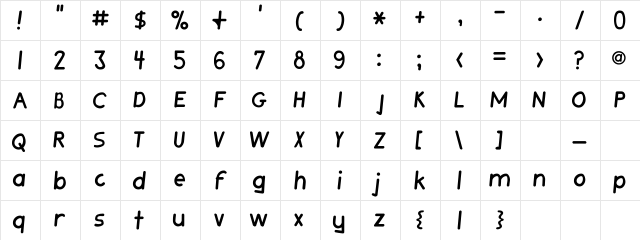
AquilliaComicHa has an approachable, lighthearted character - its loose, expressive forms are well-suited to children's content, casual branding, and fun-first design.
Font Pairing: Pairs well with a rounded or humanist sans for body copy, maintaining the friendly tone without relying on AquilliaComicHa to carry extended reading.
Pro Tip: Use AquilliaComicHa at larger display sizes where its expressive character can land. Pair with a clean, simple sans for body copy to maintain readability.